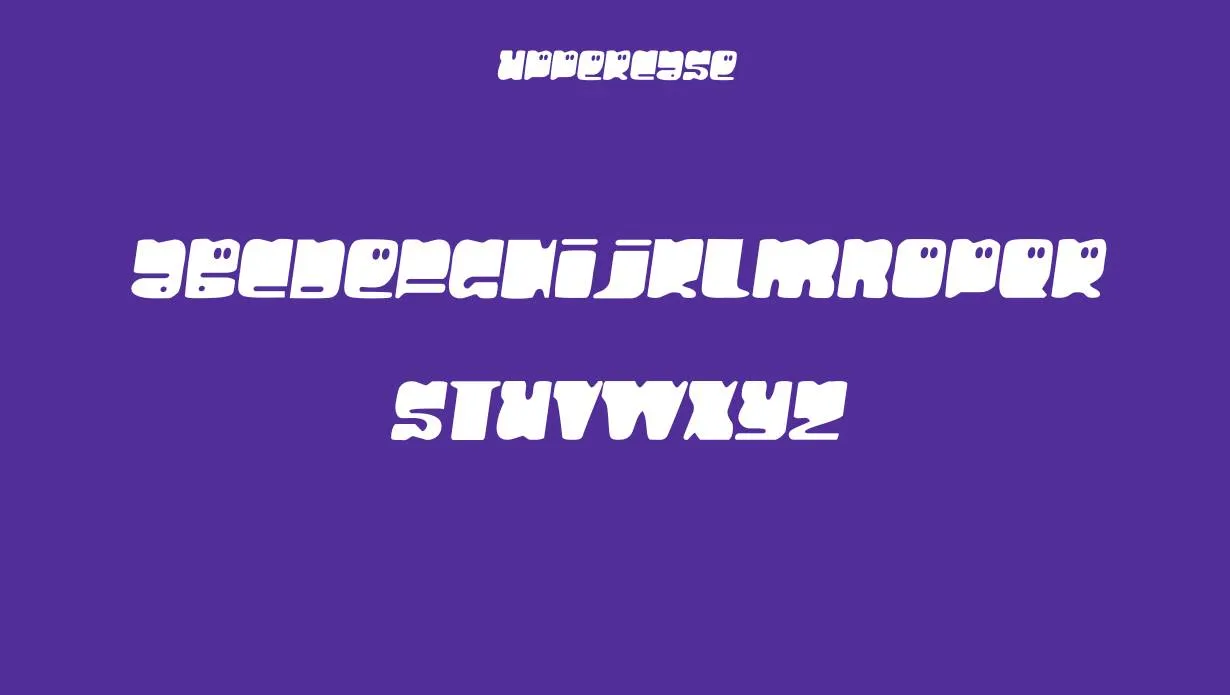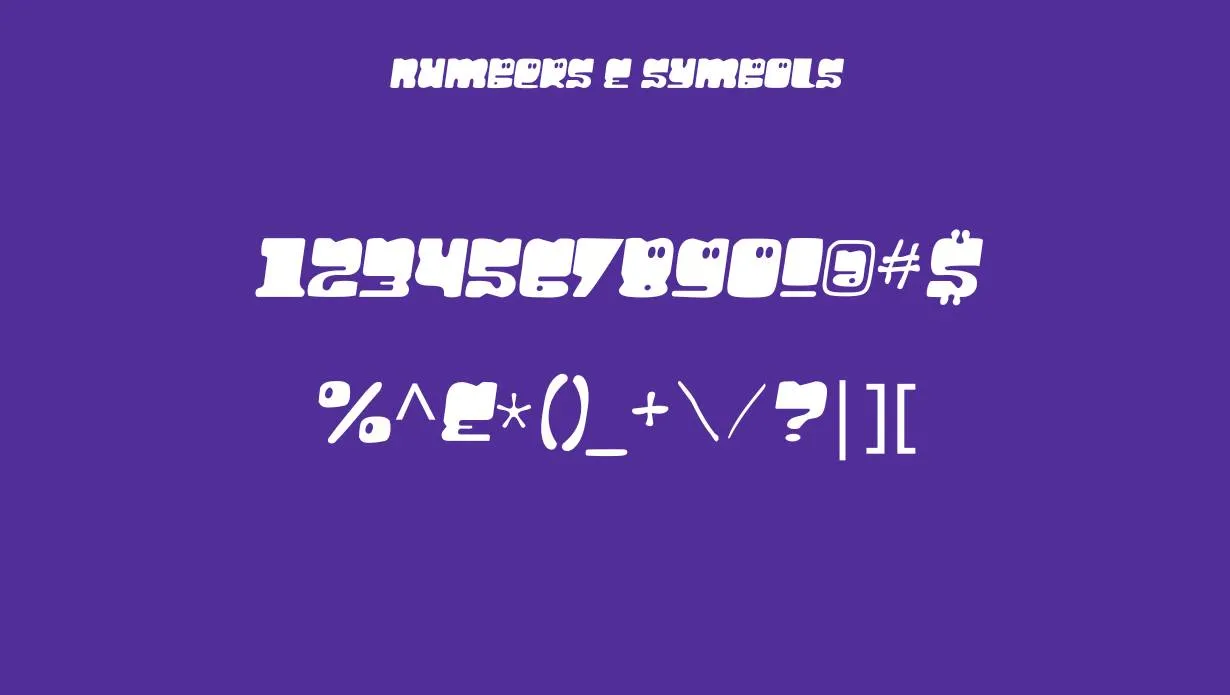
Hello Larry Font falls under the Fancy font category, designed by Ray Larabie and released by Typodermic Fonts. It features a groovy texture and includes both TTF and OTF formats.
Hello Larry Font Family